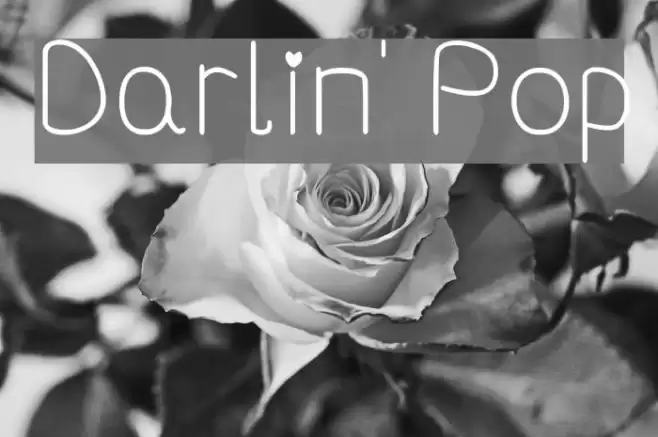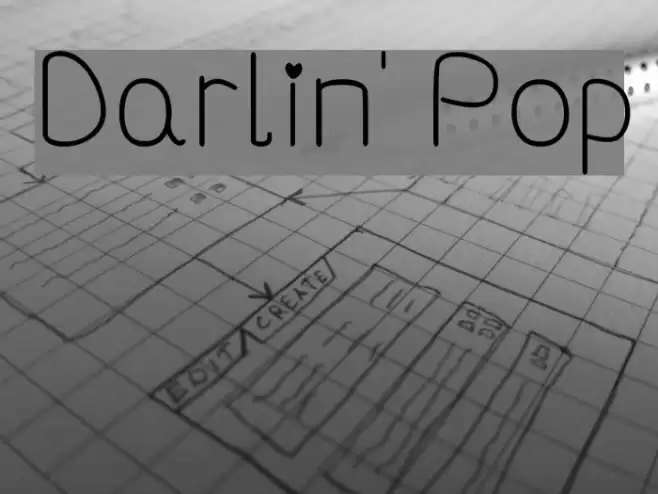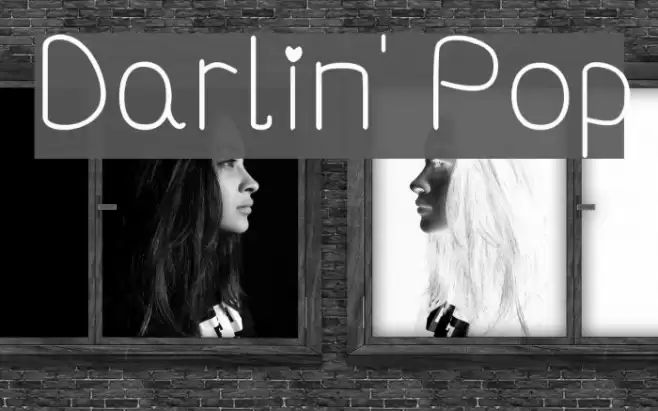
Darlin' Pop Font
Darlin' Pop Description
This playful and whimsical font features a unique and charming design, characterized by its rounded, smooth letterforms and subtle decorative elements. The uppercase and lowercase letters maintain a consistent style, with the lowercase 'i' and 'j' adorned with heart-shaped dots, adding a touch of fun and creativity. The numerals are equally rounded and maintain the font's overall playful aesthetic. Special characters, including punctuation marks, also incorporate the font's distinctive style, with some symbols like the heart and star adding to its decorative appeal. This font is ideal for projects that require a lighthearted and friendly touch.
A playful, rounded font with heart-shaped accents and a whimsical style from Uncategorized fonts.
- Proposed Projects: Ideal for children's books, greeting cards, playful branding, and social media graphics.
- Overall Style: Playful
- Use Case: Headlines, Logos, Decorative Text